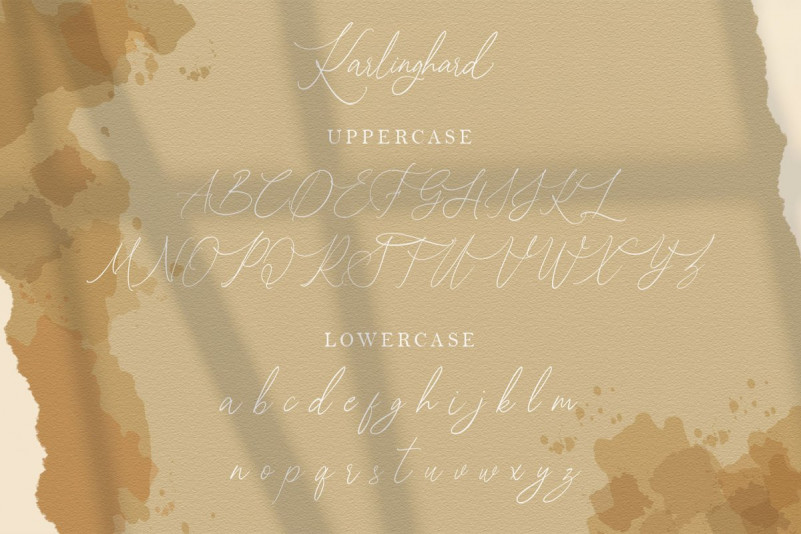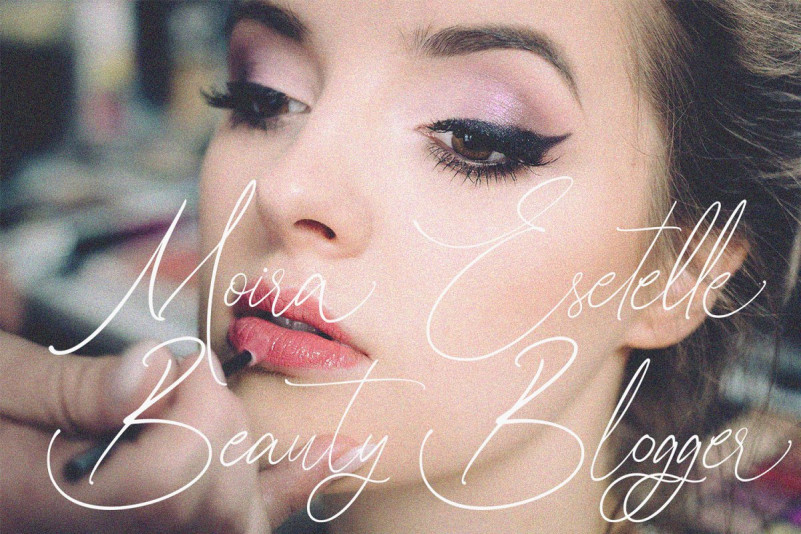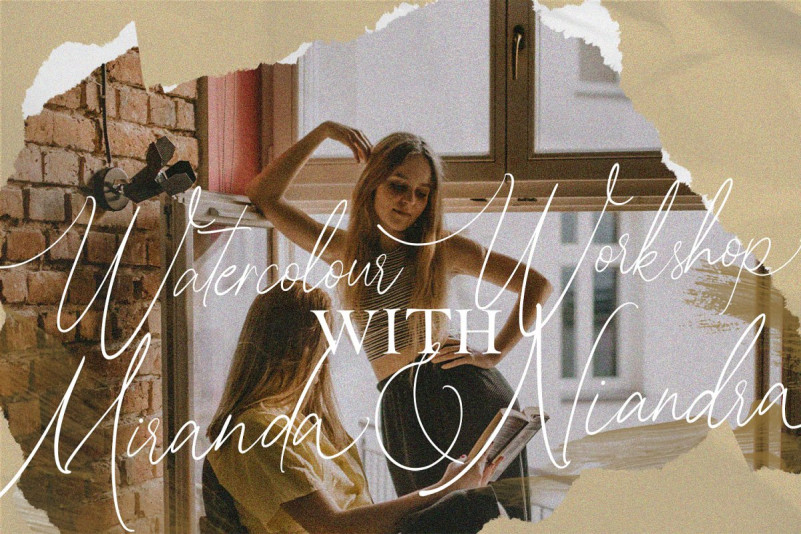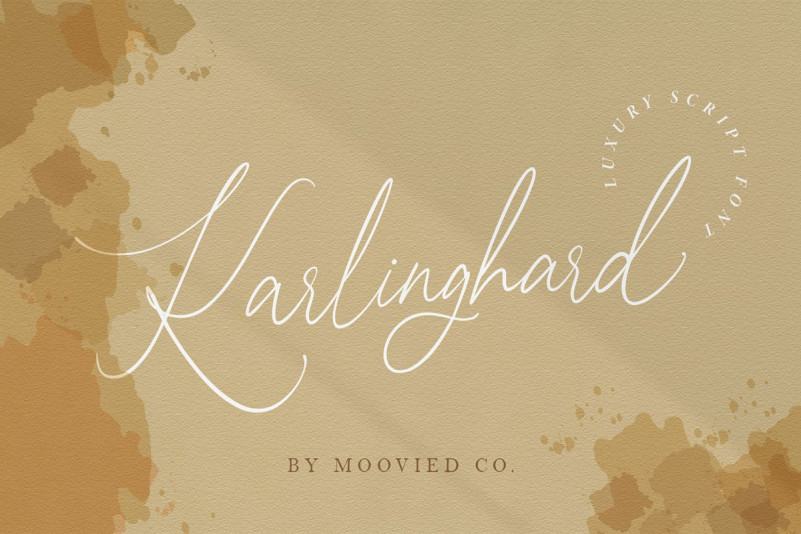
Karlinghard Signature Font
Karlinghard Signature – Demo Font
Introducing Karlinghard Font. This is an exciting handwritten font with signature style. This beautiful script can make your design project look elegant, classy, and modern. It is design and shared by Moovied Co.. It’s a modern signature, It is perfect for blogging, social media, branding, product packaging, wedding invitations, branding, headlines, signage, labels, signature, book covers, posters, quotes and more.